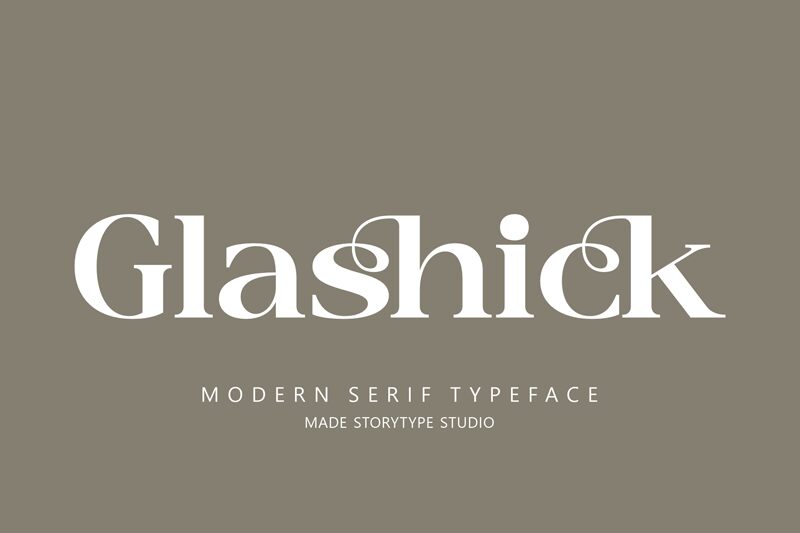
Glashick
Glashick Typeface emerges as a serif font with a bold and semi-expanded width, crafted meticulously by Storytype Studio.
It stands out with its modern yet classic aesthetic, infusing each character with its own distinctive elegance. This typographic creation is tailor-made for projects that demand a touch of sophistication and luxury. Whether it's the chic branding of a fashion label, the compelling title of a book or movie, or the refined layout of a magazine, Glashick adds an element of upscale charm.
Its versatility extends to personalized lettering and memorable quotes, ensuring that your creative endeavors are not only impactful but also resonate with style and high-end allure.